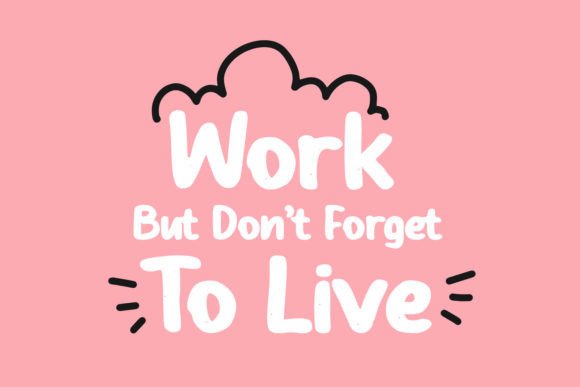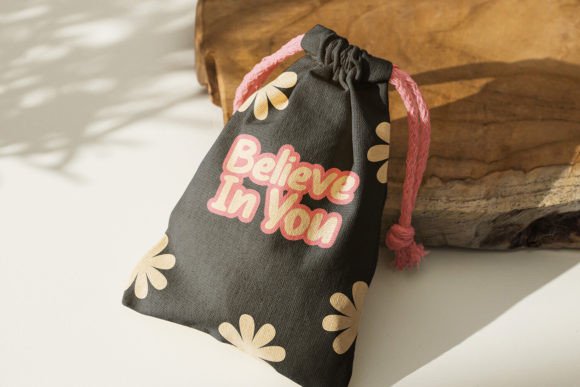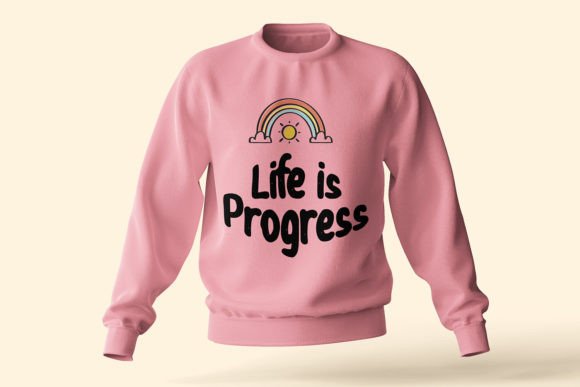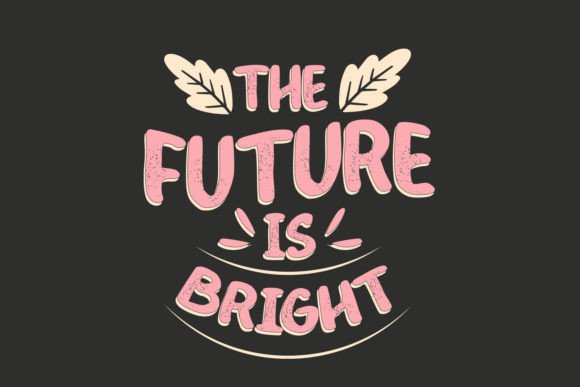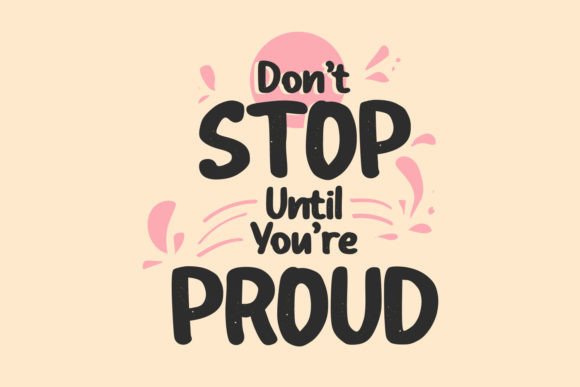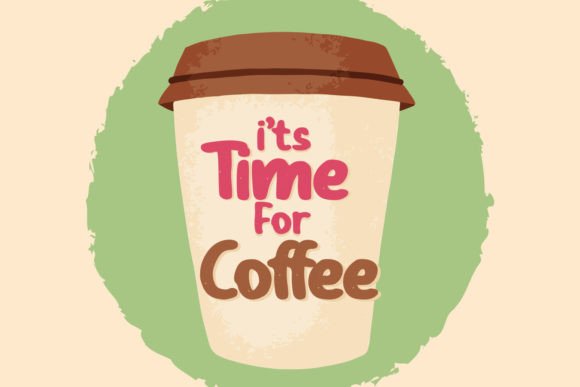
When Design Meets Personality: Introducing Bluefin Hake Font
Have you ever stared at a blank canvas, eager to bring your creative vision to life, only to feel stuck by the monotony of standard fonts? That’s where the magic of typography comes in – and we’re excited to introduce you to the Bluefin Hake Font, a game-changer in the world of display fonts.
This captivating font is designed to add a dash of playfulness and creativity to your designs, making it perfect for projects that require attention-grabbing visuals. With its bold strokes, playful shapes, and subtle grunge details, the Bluefin Hake Font exudes a sense of energy and fun, while its low contrast ensures clarity and legibility in any size. Whether you’re a seasoned designer or a creative enthusiast, this font is sure to bring a breath of fresh air to your work.
Bluefin Hake Font Key Features
- Font Family: Bluefin Hake
- Unique Characteristic: A modern sans-serif font with a unique blend of geometric and organic elements, making it suitable for a wide range of applications, from corporate branding to digital interfaces
Bluefin Hake Font Review
I recently had the chance to work with the Bluefin Hake font, and I must say it’s an interesting choice. ✨ The font’s unique blend of script and sans-serif elements can add a touch of elegance to any design project.
- ✨ Versatility: Bluefin Hake can be used for both body text and headings, making it a great choice for multi-page designs.
- ✨ Legibility: The font is easy to read, even at smaller sizes, which is a must for any font.
- ✨ Expressiveness: The font’s unique flair can add a personal touch to your designs, making them stand out from the crowd.
- ⚠️ Limited language support: Bluefin Hake may not be the best choice for projects that require a wide range of languages.
- ⚠️ Overuse: The font’s unique style can be overwhelming if overused, so be sure to use it sparingly.
- ⚠️ Display limitations: The font may not be the best choice for display text, such as headings or titles, due to its limited display capabilities.
Overall, I think Bluefin Hake is a solid choice for designers who want to add a touch of sophistication to their projects. With careful use, it can be a great addition to any design toolkit.
Tips for Getting the Most Out of the Bluefin Hake Font
Use the Bluefin Hake font to add a touch of elegance and sophistication to your designs.
Pair the font with other elegant fonts for a professional look.
Experiment with different font sizes and colors to create a unique design.
Use the Bluefin Hake font for:
Restaurant menus and wine lists
Any design that requires a touch of elegance and sophistication
Alternatives to Bluefin Hake Font
Montserrat is a modern sans-serif font designed by Julieta Ulanovsky. It is a great alternative to Bluefin Hake Font for projects that require a clean and minimalist look. Montserrat is more geometric and condensed compared to Bluefin Hake Font, making it ideal for digital interfaces and mobile apps.
Merrweather is a classic serif font designed by Eben Sorkin. It is a great alternative to Bluefin Hake Font for projects that require a traditional and elegant look. Merriweather is more formal and sophisticated compared to Bluefin Hake Font, making it ideal for books, magazines, and business reports.
Lato is a sans-serif font designed by Łukasz Dziedzic. It is a great alternative to Bluefin Hake Font for projects that require a clean and modern look. Lato is more rounded and friendly compared to Bluefin Hake Font, making it ideal for web design, social media, and marketing materials.
Open Sans is a modern sans-serif font designed by Steve Matteson. It is a great alternative to Bluefin Hake Font for projects that require a clean and approachable look. Open Sans is more neutral and versatile compared to Bluefin Hake Font, making it ideal for digital interfaces, web design, and mobile apps.